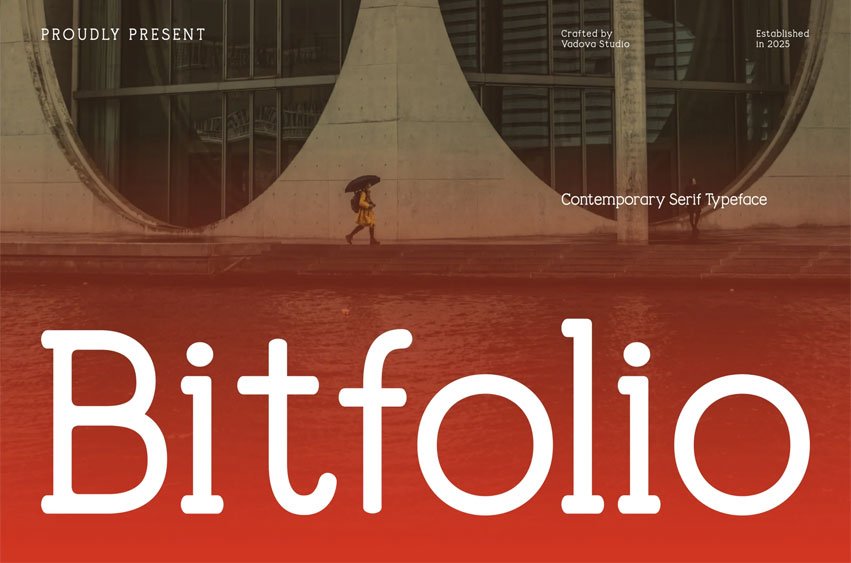
Bitfolio Font is a contemporary serif typeface that balances precision with personality. With a refined yet approachable style, it radiates modern elegance and warmth, making it ideal for brands looking to stand out with both authority and charm. The font’s energy is sleek and composed, projecting sophistication without feeling stiff.
Perfectly tailored for editorial layouts, fashion-forward branding, and modern storytelling, Bitfolio delivers an understated confidence that fits right into luxury product packaging, minimalist advertising, and high-end social media content. It evokes the mood of thoughtful design—an essential choice for aesthetic-forward designers and marketers who value clarity and creativity.
Its letterforms feature soft, rounded terminals and geometric balance, creating a modern take on classic serif tradition. With strong contrast and open counters, Bitfolio ensures high readability while maintaining visual flair. The font is best suited for branding projects, editorial layouts, minimalist advertising, packaging design, and modern digital content where a clean yet distinctive typographic voice is essential.